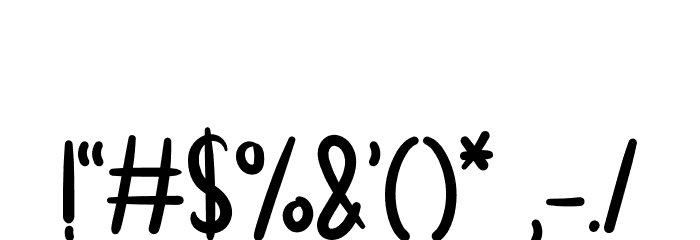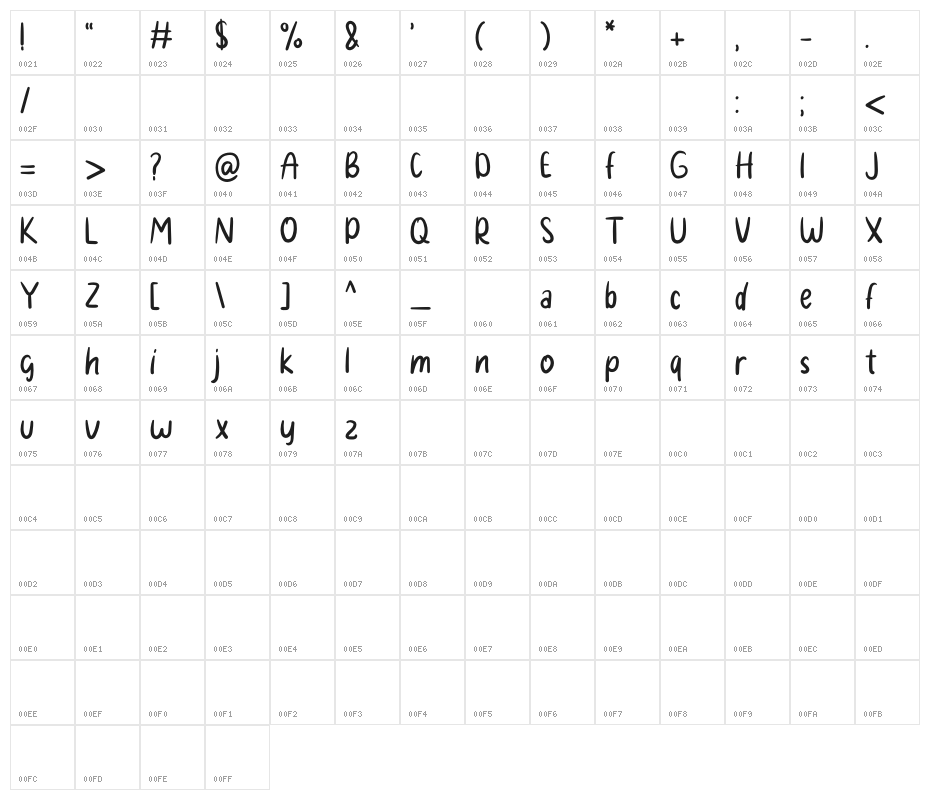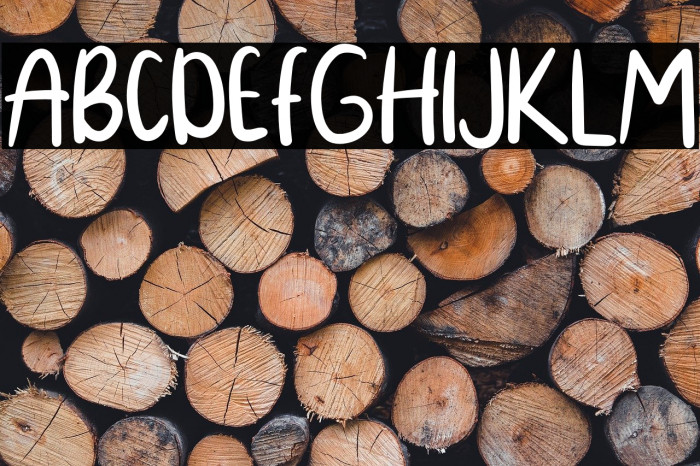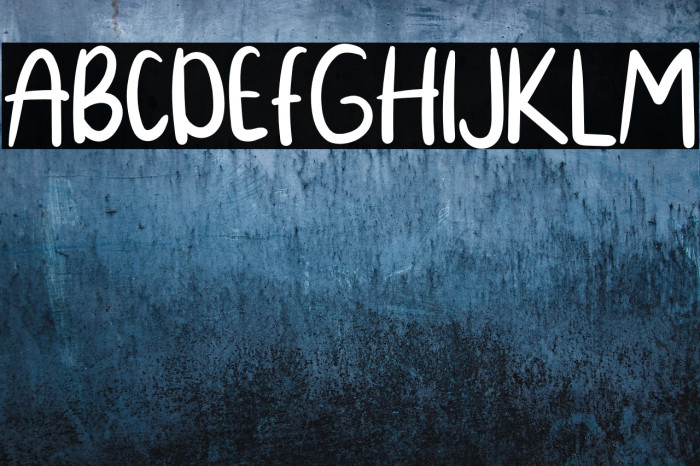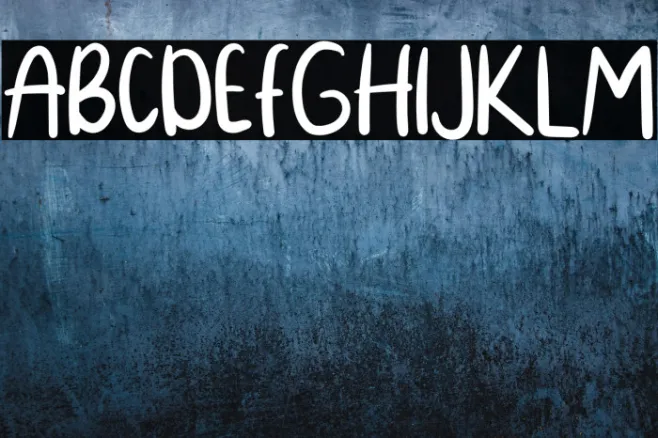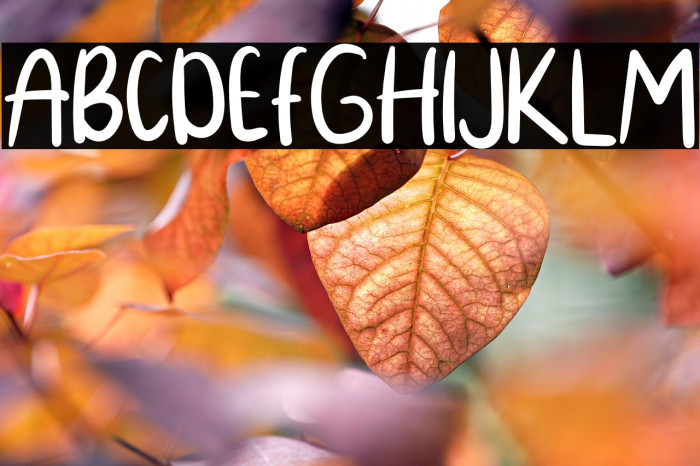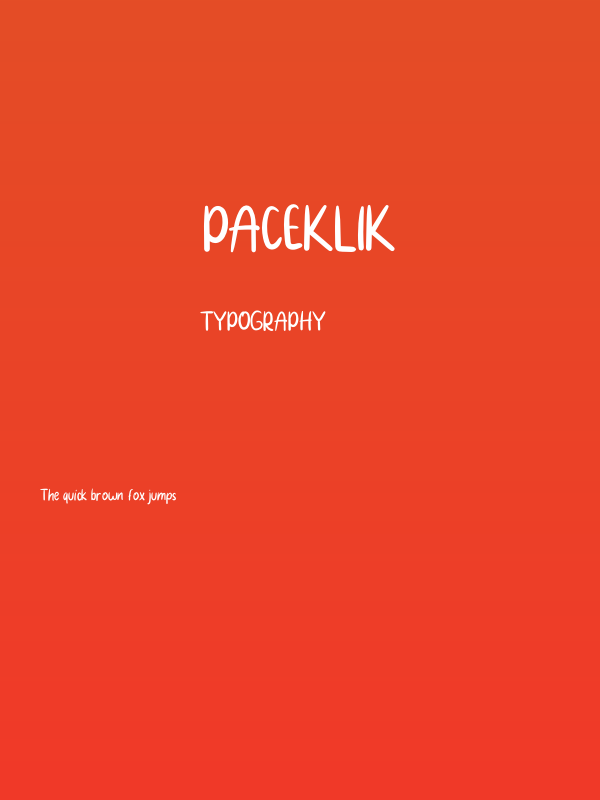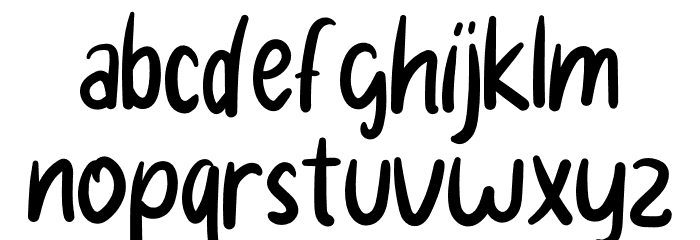
Paceklik Font
Paceklik Description
This font features a playful and casual handwritten style, characterized by its smooth, rounded edges and slightly irregular strokes. The letters have a consistent flow, giving it a friendly and approachable appearance. The uppercase and lowercase letters maintain a uniform height, while the special characters blend seamlessly with the overall design. The font's informal nature makes it suitable for projects that require a personal touch or a relaxed vibe.
| Use Case | Headlines, Informal text, Branding |
| Proposed Projects | Ideal for greeting cards, children's books, casual branding, and social media graphics. |